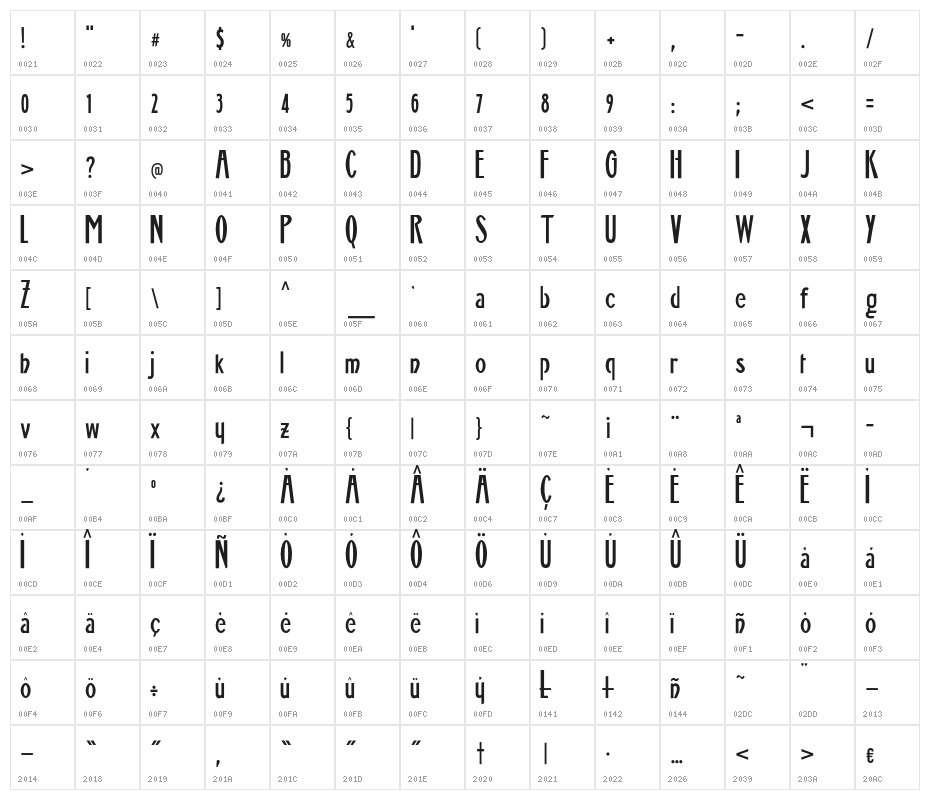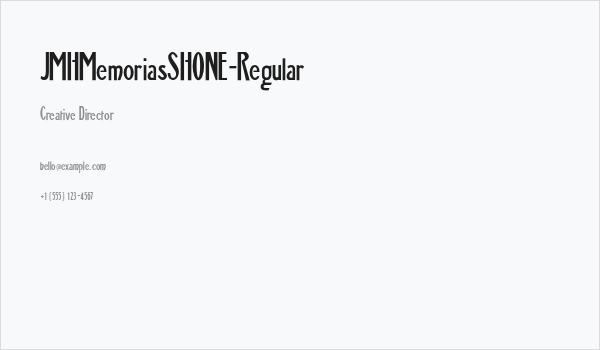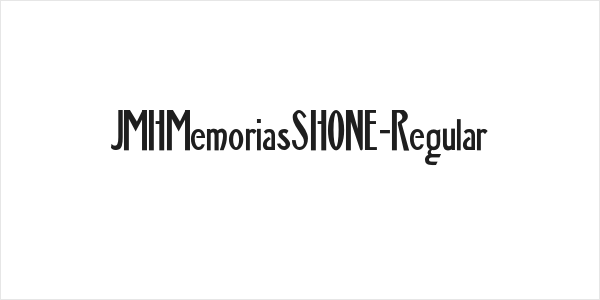
JMHMemoriasSHONE-Regular Font
JMHMemoriasSHONE-Regular Description
This font features a bold and striking design with tall, narrow characters that create a strong visual impact. The uppercase letters are particularly elongated, giving a sense of height and elegance. The lowercase letters maintain a consistent style, with unique curves and angles that add character. The numerals are clear and easy to read, matching the overall aesthetic. Special characters are well-integrated, maintaining the font's cohesive look. The font's distinct style makes it suitable for attention-grabbing headlines and creative projects.
| Proposed Projects | Ideal for posters, logos, branding, and editorial design where a bold statement is needed. |